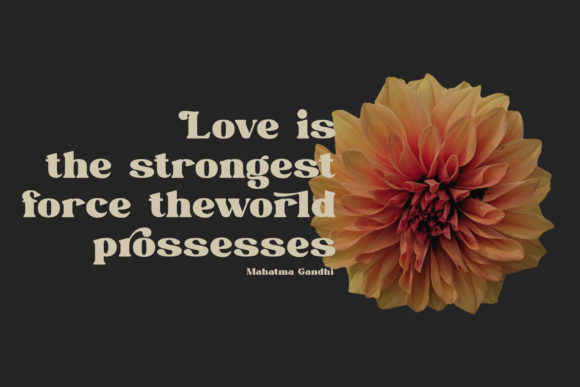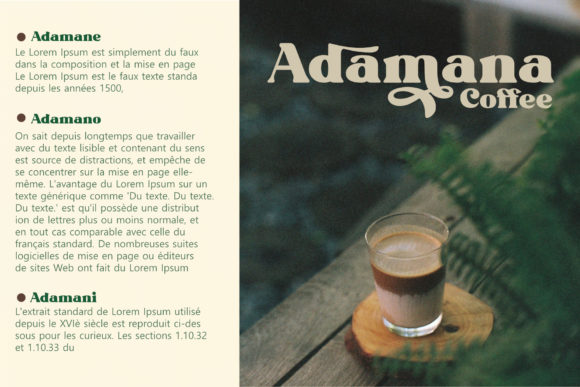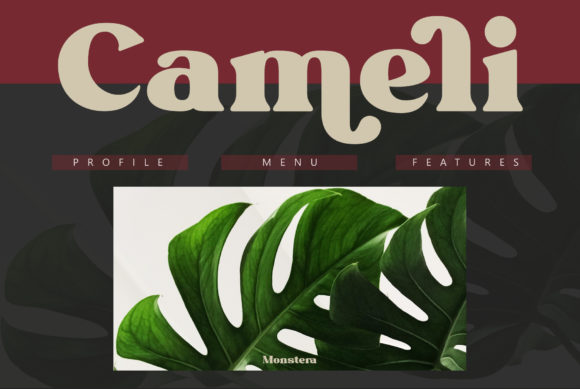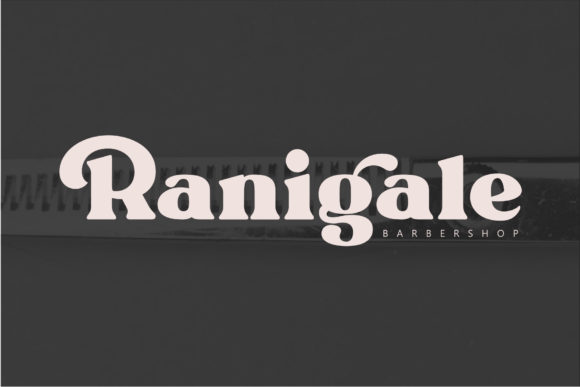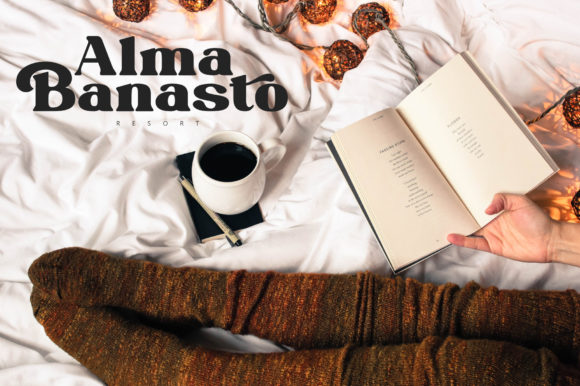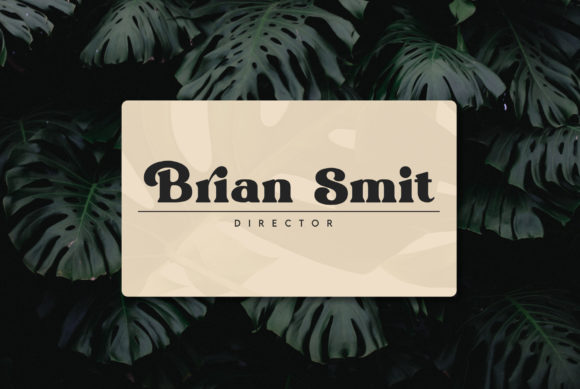
Givani Font: Elevate Your Designs with Elegance and Versatility
Are you on the hunt for a font that exudes elegance, sophistication, and versatility? Look no further than the stunning Givani Font. This beautiful, chunky lettered and bold serif font is perfect for designers and crafters seeking to add a touch of luxury to their creations. In this article, we’ll dive into the world of Givani Font, exploring its features, uses, and benefits, as well as provide tips on how to make the most of this incredible font.
What is Givani Font?
Givani Font is a gorgeous, elegant, and chunky lettered font that boasts a bold serif style. Its unique blend of sophistication and playfulness makes it an ideal choice for a wide range of design projects. Whether you’re creating wedding invitations, social media posts, or stationery art, Givani Font is sure to impress.
Key Features of Givani Font
- Elegant and Sophisticated: Givani Font features a bold serif style that exudes elegance and sophistication, making it perfect for high-end designs.
- Chunky Lettering: The font’s chunky lettering adds a touch of playfulness and whimsy, making it ideal for designs that require a bit of personality.
- Versatile: Givani Font is incredibly versatile, allowing you to use it for a wide range of design projects, from wedding invitations to social media posts.
Uses for Givani Font
Givani Font is perfect for designers and crafters seeking to create stunning designs for various occasions. Here are some ideas to get you started:
- Wedding Invitations: Create beautiful, elegant wedding invitations that set the tone for the big day.
- Stationery Art: Use Givani Font to create gorgeous stationery art, including greeting cards, thank-you cards, and more.
- Social Media Posts: Add a touch of elegance to your social media posts, making them stand out from the crowd.
- Branding: Use Givani Font to create stunning brand identities, including logos, business cards, and letterheads.
Benefits of Using Givani Font
So, why choose Givani Font for your design projects? Here are just a few benefits:
- Unique and Eye-Catching: Givani Font is sure to grab attention, making your designs stand out from the crowd.
- Easy to Read: Despite its bold style, Givani Font is easy to read, making it perfect for designs that require a clear message.
- Customizable: Givani Font can be customized to suit your design needs, allowing you to experiment with different colors, textures, and more.
Tips for Using Givani Font
To make the most of Givani Font, here are a few tips to keep in mind:
- Experiment with Colors: Try pairing Givani Font with different colors to create unique and eye-catching designs.
- Play with Textures: Add texture to your designs by pairing Givani Font with different textures, such as watercolor or gold foil.
- Keep it Simple: Don’t be afraid to keep your designs simple and clean, allowing Givani Font to take center stage.
In conclusion, Givani Font is a stunning, elegant, and versatile font that’s perfect for designers and crafters seeking to add a touch of luxury to their creations. With its unique blend of sophistication and playfulness, Givani Font is sure to impress. Whether you’re creating wedding invitations, social media posts, or stationery art, Givani Font is the perfect choice. So why wait? Fall in love with Givani Font and elevate your designs to new heights!